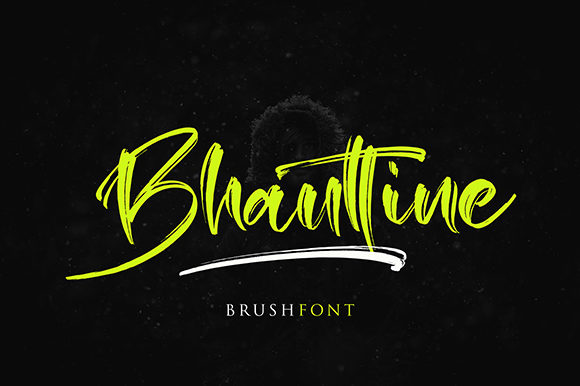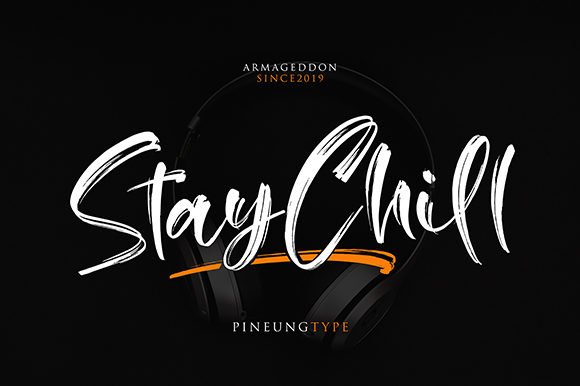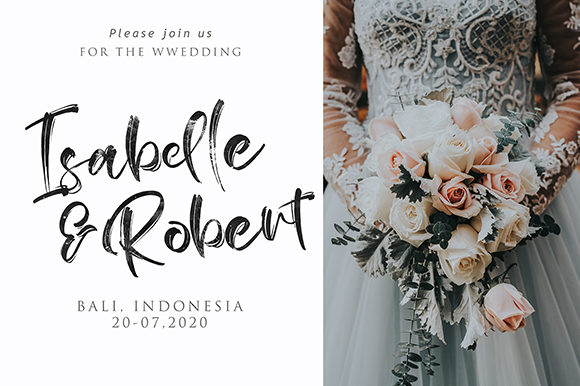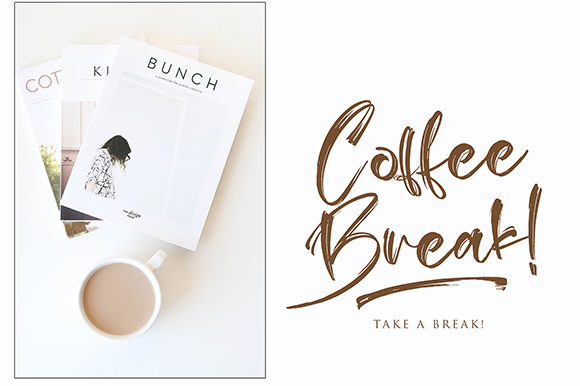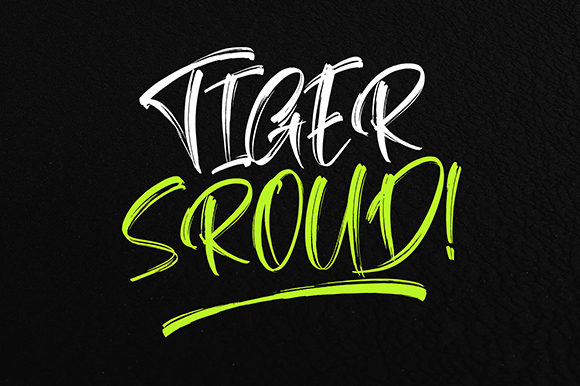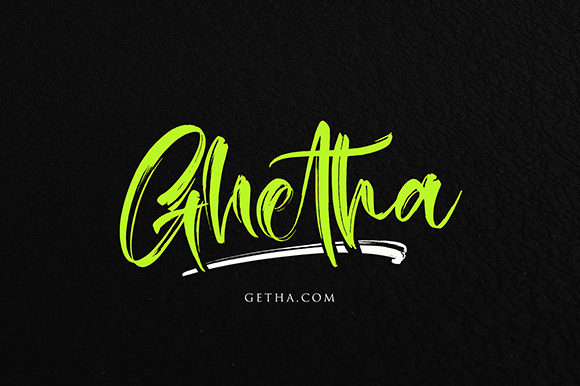
Bhauttine Font
About Bhauttine Font
Bhauttine is a stunning brush font with a bold twist. Get inspired by its unique feel, and turn any design project into a standout!